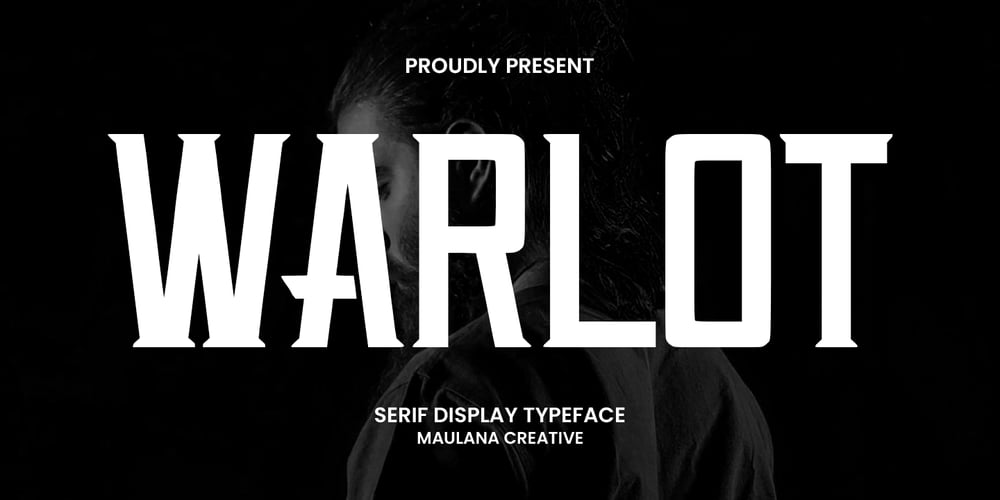
MC Warlot
MC Warlot font
MC Warlot Font Family was designed by Gilang Maulana and published by Maulana Creative. MC Warlot contains 1 styles and family package options. Warlot is a decorative serif display font. Bold stroke, fun character with a bit of ligatures and stylistic. To give you an extra creative work. Warlot font support multilingual more than 100+ language. This font is good for logo design, Social media, Movie Titles, Books Titles, a short text even a long text letter and good for your secondary text font with script or serif. Make a stunning work with Warlot font. Cheers, Maulana Creative